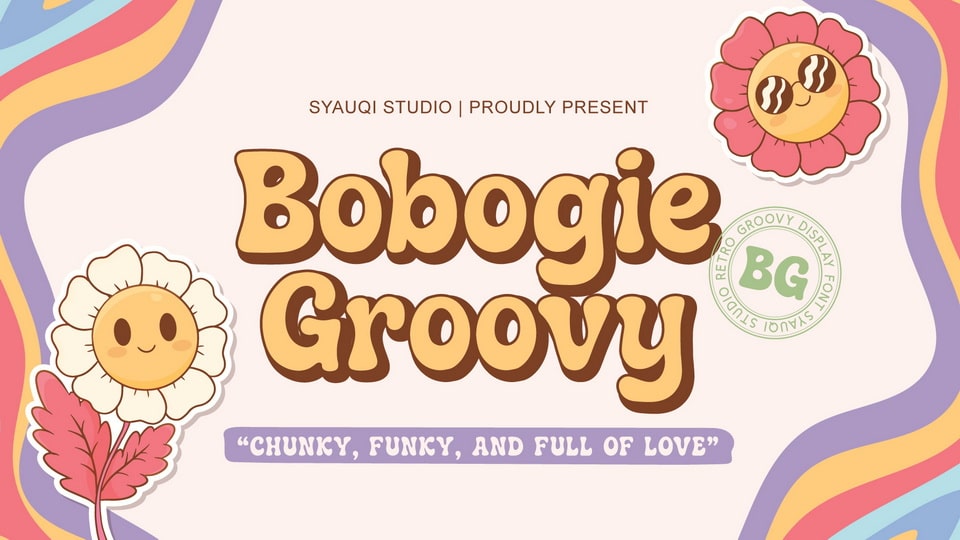
Download Bobogie Groovy font, a bold retro display typeface inspired by the golden age of the ’60s and ’70s. This typeface dances with personality, blending chunky curves, playful letterforms, and a joyful rhythm that will make any design sing.
Designer: Syauqi Studio